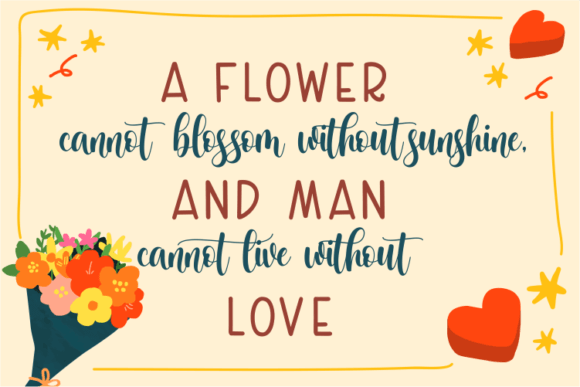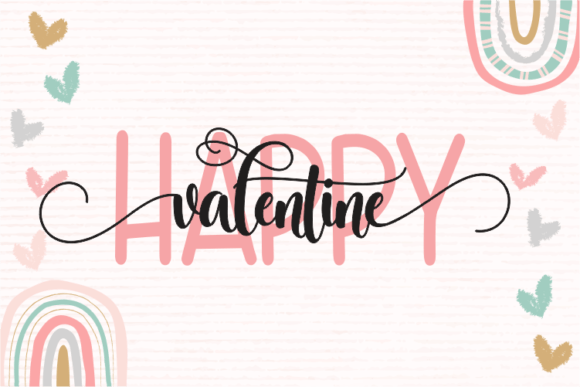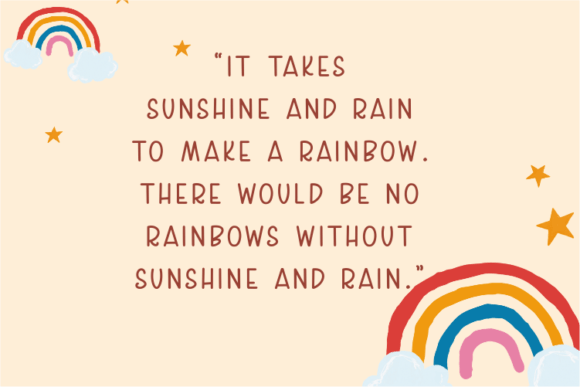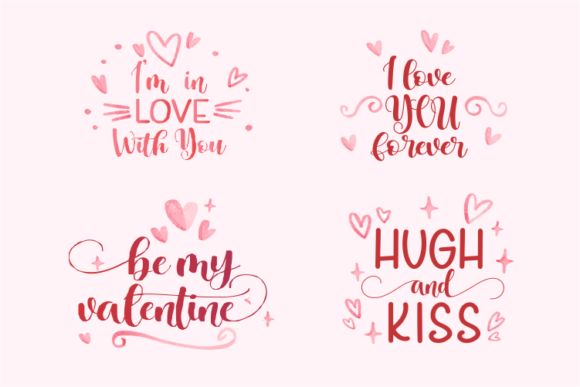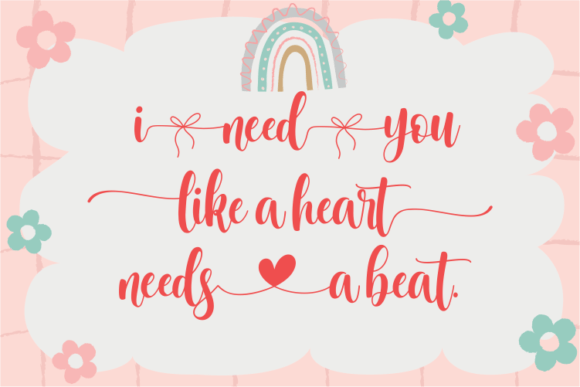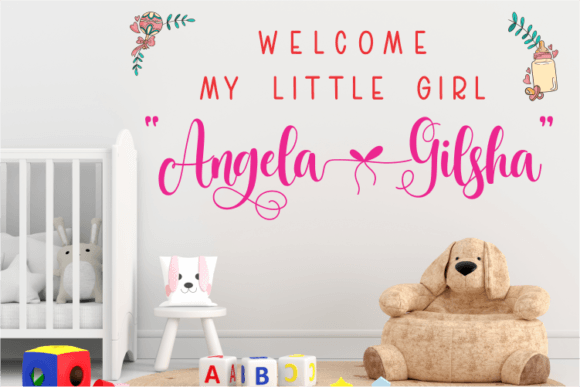
Introduction to Lovely Valentine Duo Font
Remember the excitement of designing a special invitation for your best friend’s wedding or a heartfelt birthday card for a loved one? The search for the perfect font can be a daunting task, but what if you could find one that captures the essence of love and warmth in a single stroke? Enter the Lovely Valentine Duo Font, a charming handwritten font duo that brings a sweet, personal touch to your designs.
As a designer, you know how important it is to have high-quality design resources at your fingertips. The Lovely Valentine Duo Font is a valuable addition to any creative project, offering a smooth, flowing style that’s perfect for invitations, greeting cards, and cozy branding. With its friendly character and transparent background, you can easily add a personal touch to your designs without any hassle.
Key Features of Lovely Valentine Duo Font
• Unique Hand-Drawn Design: Lovely Valentine Duo Font features a beautiful hand-drawn design perfect for creative projects and adding a personal touch to your work.
• Perfect for Creative Projects: This font is ideal for romantic, love-themed, and Valentine’s Day projects, as well as any other creative project where a touch of elegance is needed.
Honest Review: Lovely Valentine Duo Font
I recently came across the Lovely Valentine Duo Font, a free download that I was excited to try out in my creative project. At first glance, I was impressed by the high quality of the font, which features a beautiful, elegant script style that’s perfect for romantic designs.
• ✨ The font is highly versatile and can be used for a variety of creative projects, from Valentine’s Day cards to wedding invitations.
• ⚠️ The font only includes two styles, which may limit its usability in more complex designs.